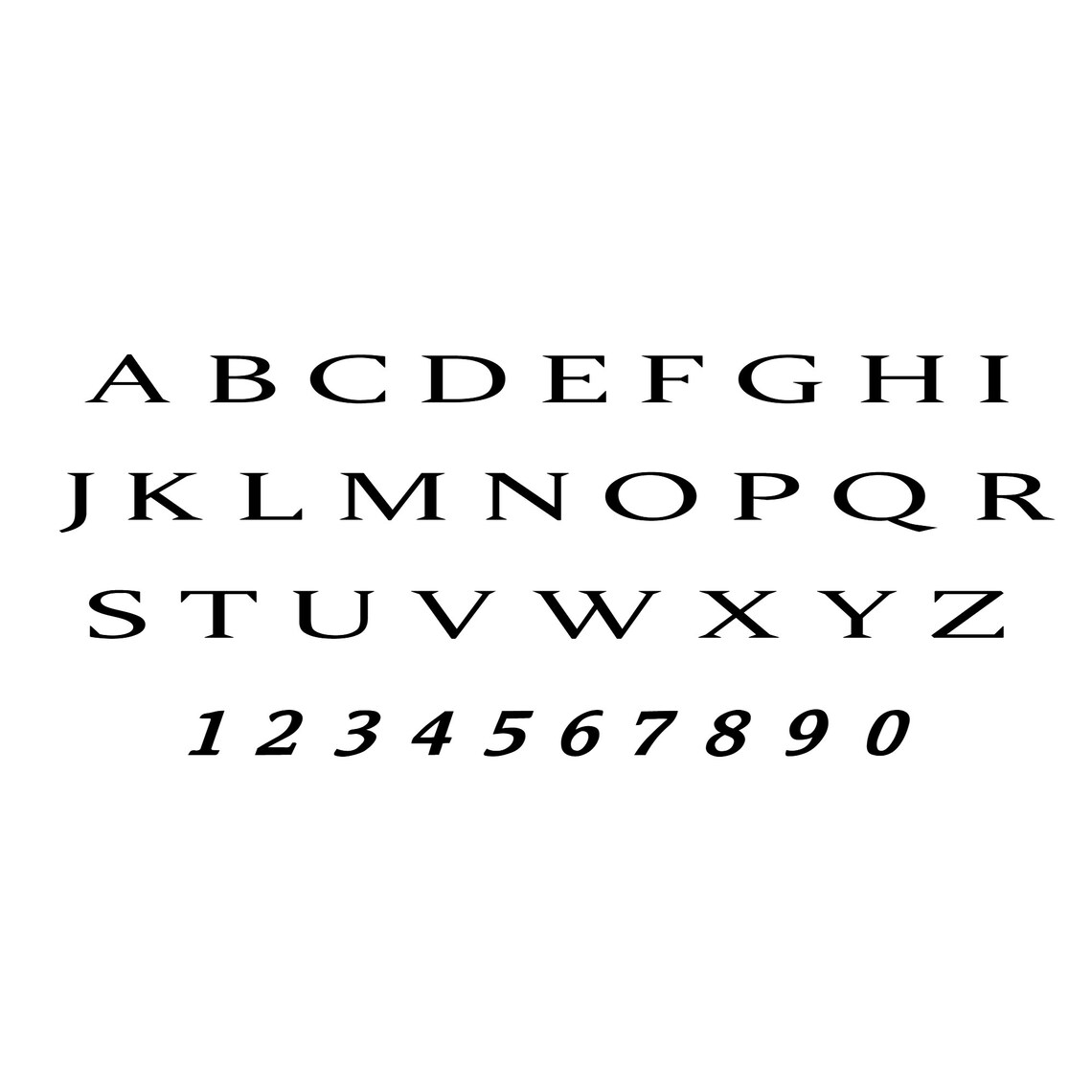
James Bond Font
James Bond Font - Size 007 goldeneye by filmhimmel. Free james bond fonts (.ttf &.otf). James bond available in windows and mac os x version. The font for the iconic 007 numbers in the famous james bond movie series was originally a hand.
James bond available in windows and mac os x version. Free james bond fonts (.ttf &.otf). Size 007 goldeneye by filmhimmel. The font for the iconic 007 numbers in the famous james bond movie series was originally a hand.
The font for the iconic 007 numbers in the famous james bond movie series was originally a hand. Free james bond fonts (.ttf &.otf). James bond available in windows and mac os x version. Size 007 goldeneye by filmhimmel.
Size 007 goldeneye by filmhimmel. James bond available in windows and mac os x version. Free james bond fonts (.ttf &.otf). The font for the iconic 007 numbers in the famous james bond movie series was originally a hand.
James bond available in windows and mac os x version. The font for the iconic 007 numbers in the famous james bond movie series was originally a hand. Size 007 goldeneye by filmhimmel. Free james bond fonts (.ttf &.otf).
Size 007 goldeneye by filmhimmel. Free james bond fonts (.ttf &.otf). The font for the iconic 007 numbers in the famous james bond movie series was originally a hand. James bond available in windows and mac os x version.
James bond available in windows and mac os x version. Free james bond fonts (.ttf &.otf). The font for the iconic 007 numbers in the famous james bond movie series was originally a hand. Size 007 goldeneye by filmhimmel.
Size 007 goldeneye by filmhimmel. The font for the iconic 007 numbers in the famous james bond movie series was originally a hand. James bond available in windows and mac os x version. Free james bond fonts (.ttf &.otf).
Free james bond fonts (.ttf &.otf). The font for the iconic 007 numbers in the famous james bond movie series was originally a hand. James bond available in windows and mac os x version. Size 007 goldeneye by filmhimmel.
Free james bond fonts (.ttf &.otf). James bond available in windows and mac os x version. Size 007 goldeneye by filmhimmel. The font for the iconic 007 numbers in the famous james bond movie series was originally a hand.
James bond available in windows and mac os x version. Size 007 goldeneye by filmhimmel. Free james bond fonts (.ttf &.otf). The font for the iconic 007 numbers in the famous james bond movie series was originally a hand.
Size 007 goldeneye by filmhimmel. Free james bond fonts (.ttf &.otf). The font for the iconic 007 numbers in the famous james bond movie series was originally a hand. James bond available in windows and mac os x version.
Size 007 goldeneye by filmhimmel. Free james bond fonts (.ttf &.otf). The font for the iconic 007 numbers in the famous james bond movie series was originally a hand.